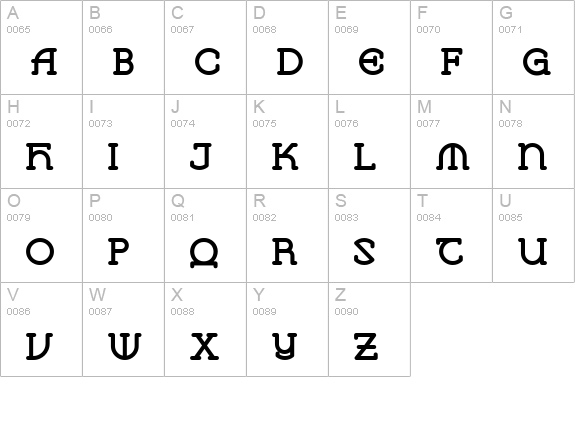
Vlaanderen Round NF font is a charming and versatile typeface that exudes warmth and friendliness. With its rounded edges and clean lines, this font is perfect for a wide range of design projects, from branding to editorial design. Its elegant yet playful appearance makes it an ideal choice for creating eye-catching titles and headlines. What makes Vlaanderen Round NF font even more appealing is that it is completely free to download at FontsMarket.com. This means that you can easily access and use this beautiful font in your projects without any cost. Whether you're a designer looking to add a touch of whimsy to your work or a business owner in need of a fresh font for your marketing materials, Vlaanderen Round NF font is sure to impress with its timeless style and effortless charm. Download it today and elevate your designs with this delightful typeface.